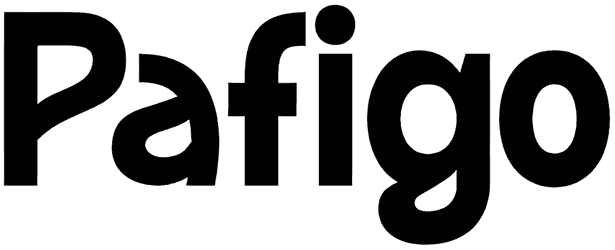
Fabula Valhalla Font
Fabula Valhalla is the basic sans-serif font that will elevate your projects to the next level because of its adaptability and four distinctive font files. It may be used for anything from branding to editorial design and can make a bold statement for your customers.
This font family is inspired by the default font seen within menus in Final Fantasy XIII (a trademark of Square Enix) and its sequels – a font which itself is based on Eurostile.
Designed by: Adam Alexander Croke